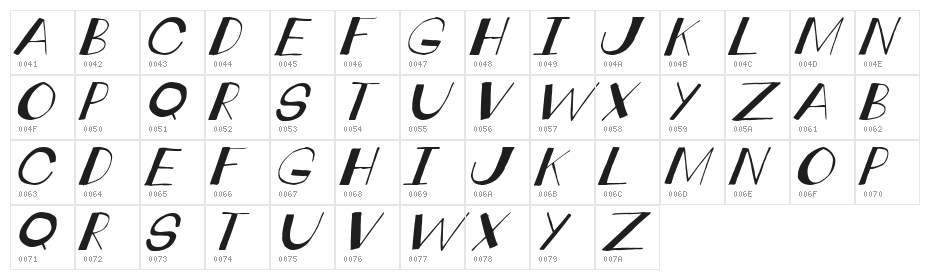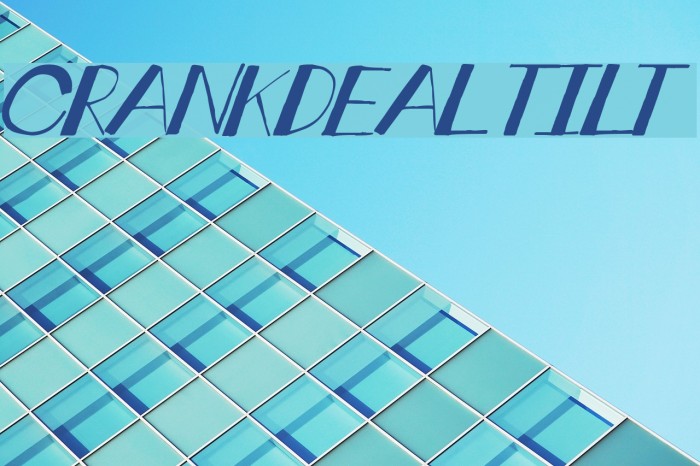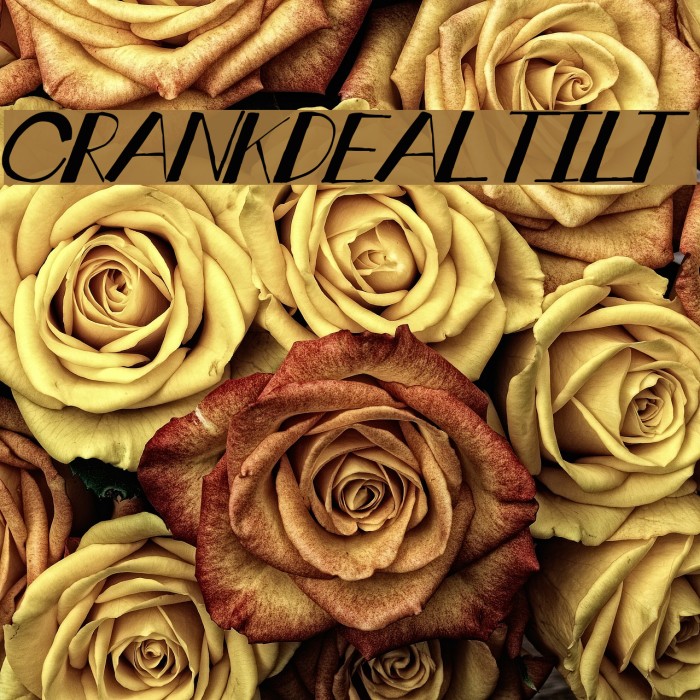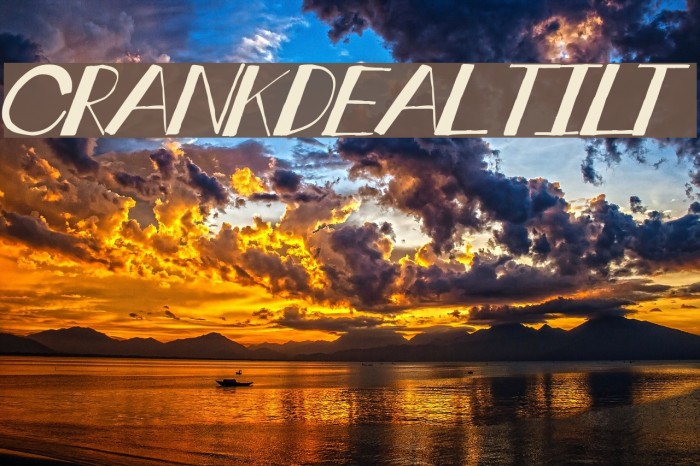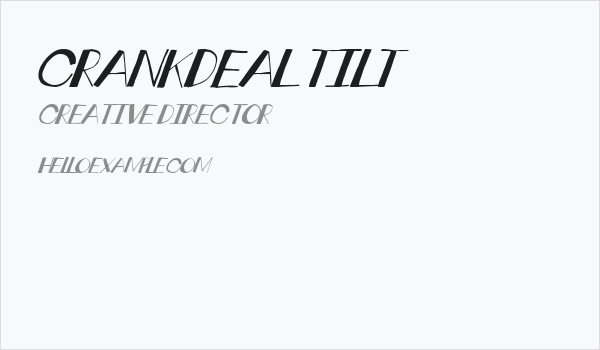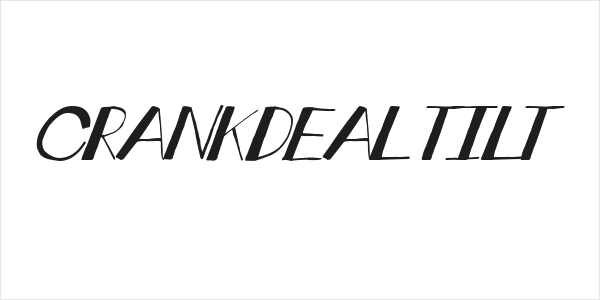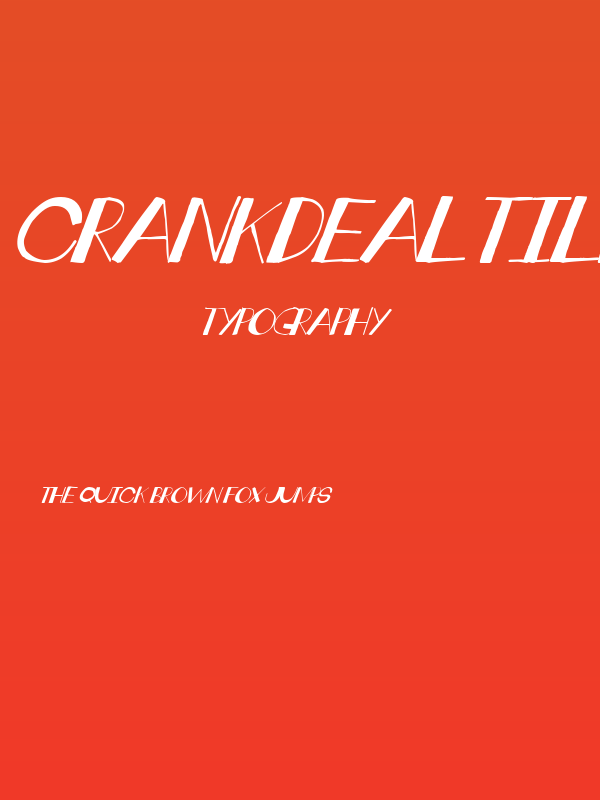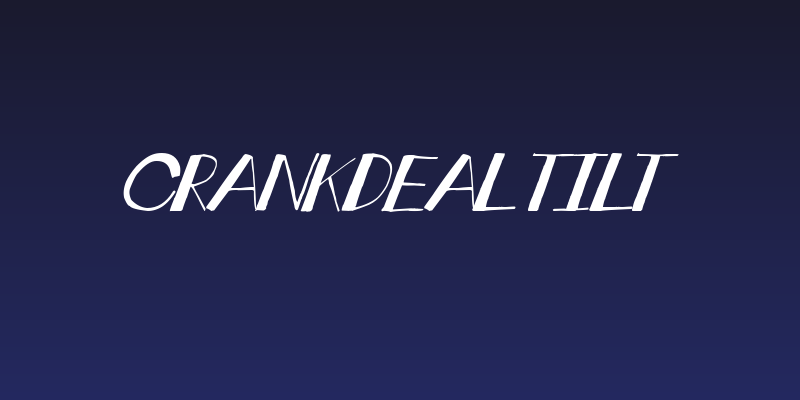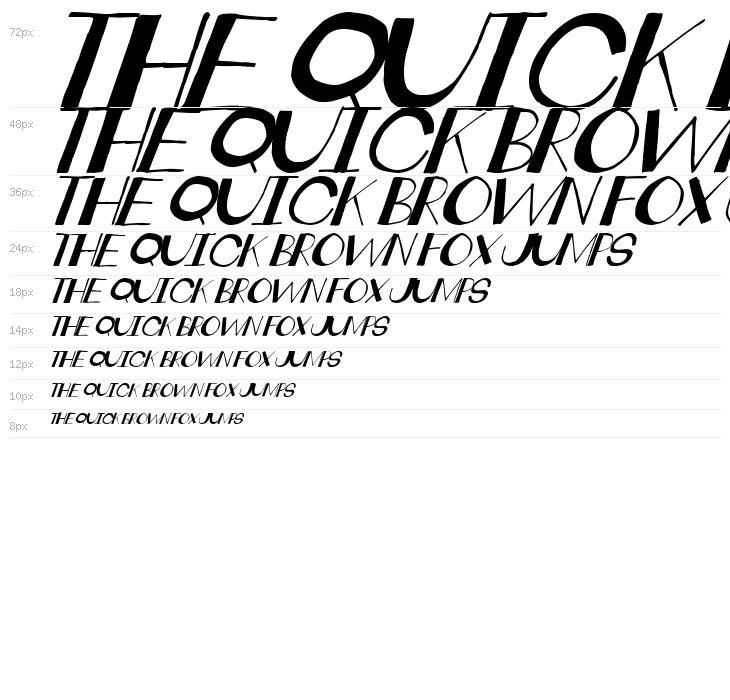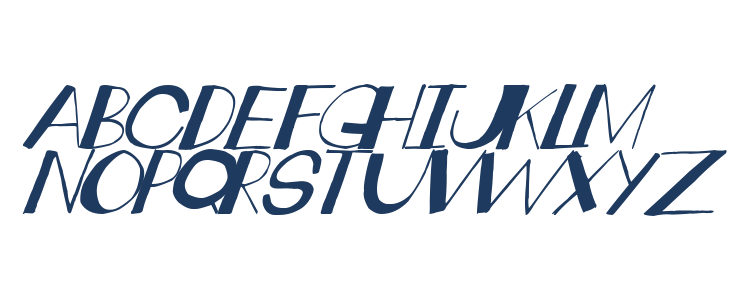
crankdeal tilt Font
crankdeal tilt Description
This font features a dynamic and energetic style with a distinct slant, giving it a sense of motion and speed. The characters are bold and have a unique flair, with some letters exhibiting exaggerated strokes and angles. The uppercase letters are particularly striking, with a mix of sharp edges and smooth curves that create a visually engaging appearance. The lowercase letters maintain the same energetic style, ensuring consistency throughout the typeface. This font is designed to capture attention and convey a sense of modernity and excitement.